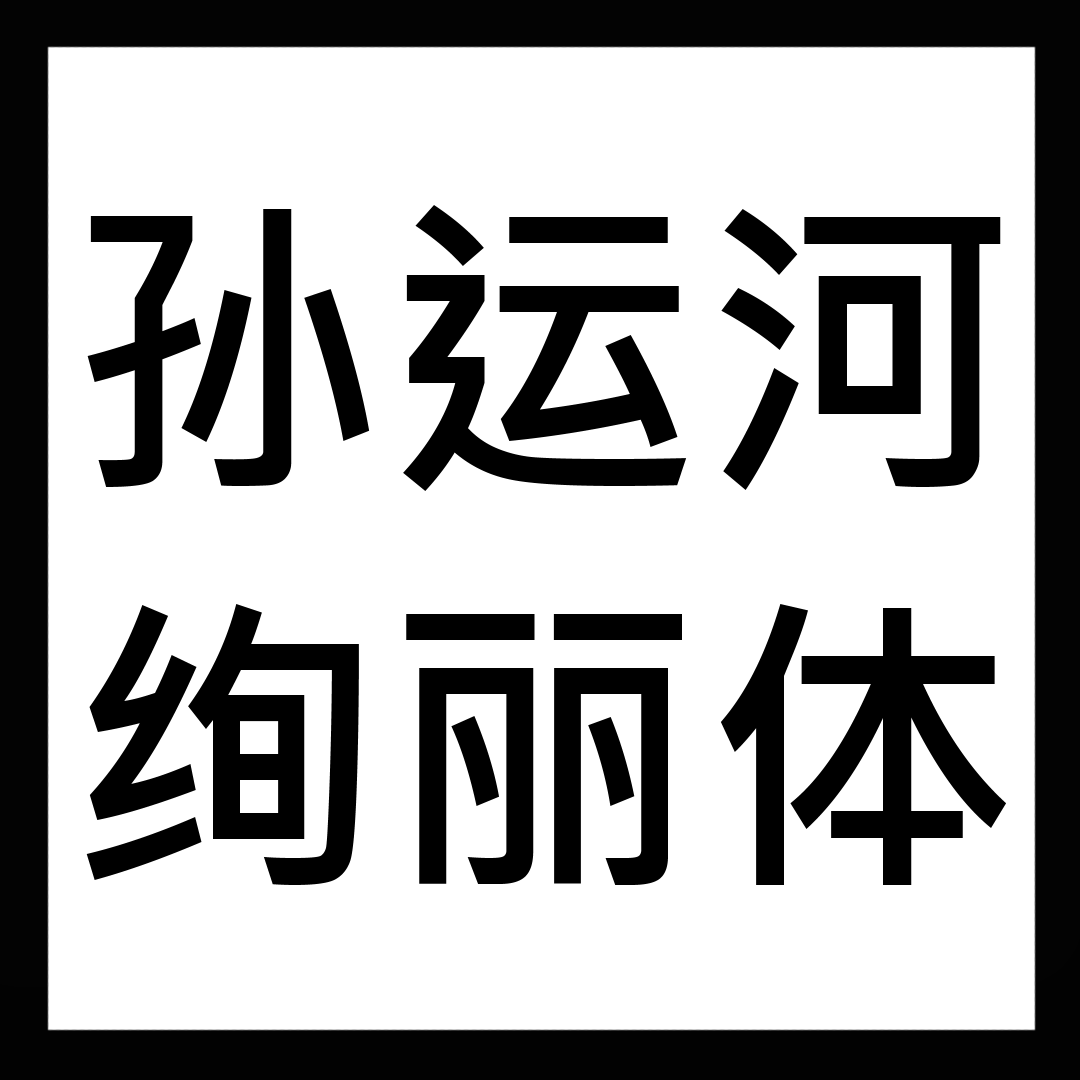
Sunyunhe Fantasy Font- Compatible with English
Transform Your Don’t Starve Together Experience with the Sunyunhe Fantasy Font Mod
Are you looking to add a touch of unique flair to your survival adventures in Don’t Starve Together? This expertly crafted mod introduces the captivating “Sun Yun” and “Shuanli Yi” fonts to your game interface, offering a fresh visual perspective on the familiar world of Don’t Starve Together. Designed for seamless integration, this mod ensures that all in-game text is presented with a distinct and stylish aesthetic.
A Stylish Upgrade for Your UI
The Sunyunhe Fantasy Font mod replaces the default game font with two new, eye-catching options. These fonts are not only visually appealing but also come with a default bold style to enhance readability. Whether you’re managing your inventory, deciphering tooltips, or reading crucial in-game messages, the new font ensures clarity without sacrificing style.
Customizable and User-Friendly
Understanding that player preferences vary, the creators of this mod have included a user-friendly option to adjust the font size. This allows you to tailor the text display to your exact needs, ensuring optimal comfort and visibility during extended gameplay sessions. The ease of customization means you can fine-tune the interface to perfectly suit your playstyle.
Key Features at a Glance:
- Introduces the unique “Sun Yun” and “Shuanli Yi” fonts.
- Applies a default bold style for improved legibility.
- Allows for adjustable font sizes to suit player preference.
- Enhances the overall visual appeal of the Don’t Starve Together interface.
- Compatible with English text for a broad user base.